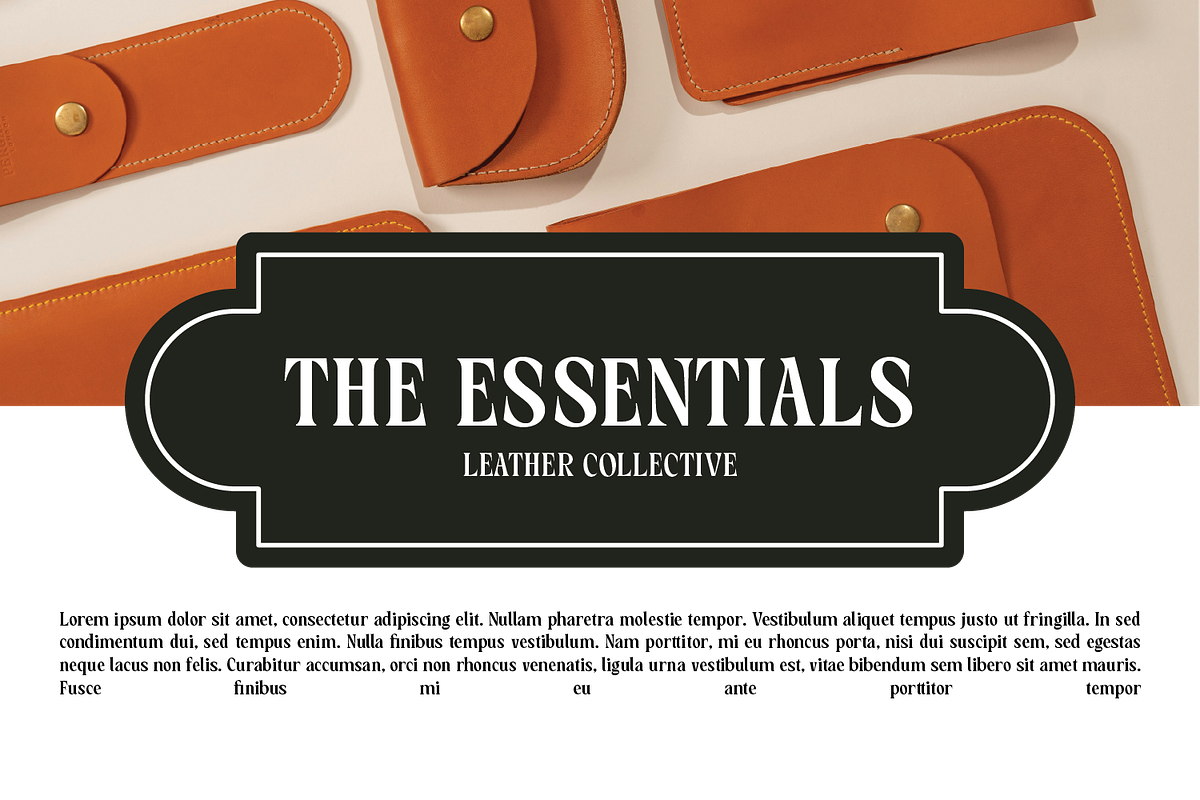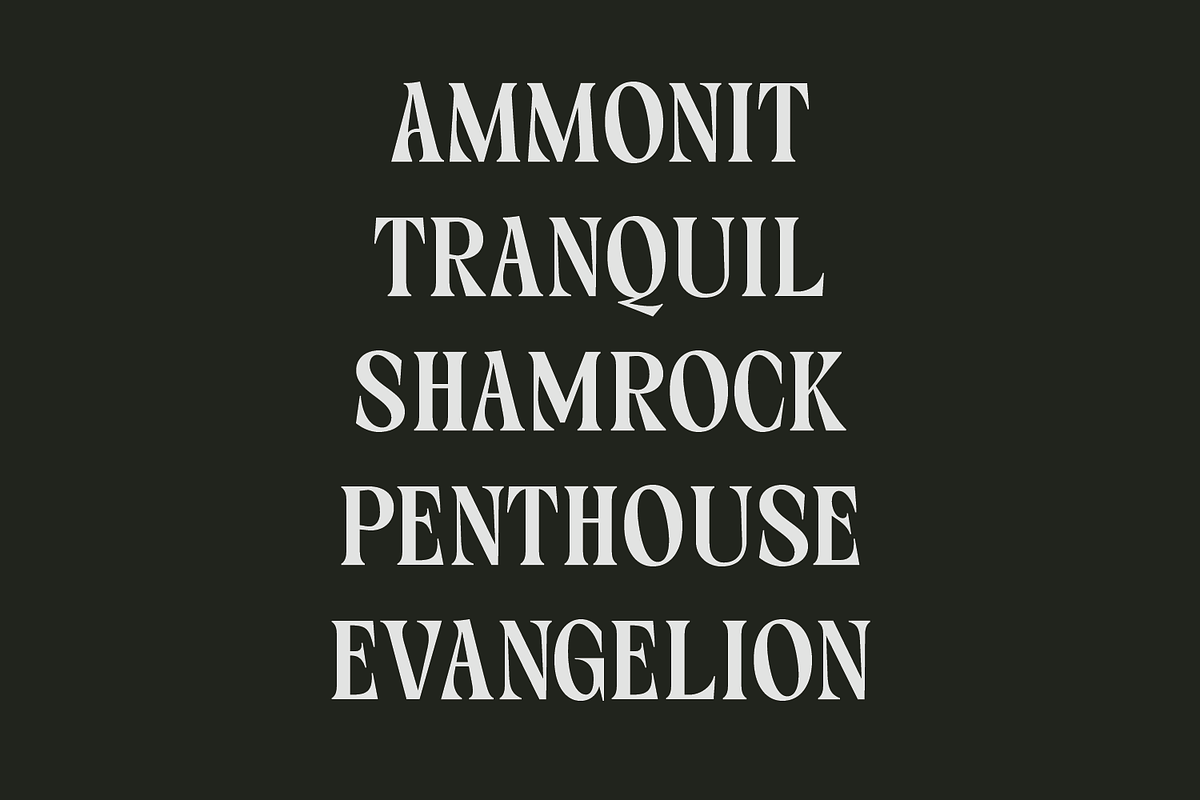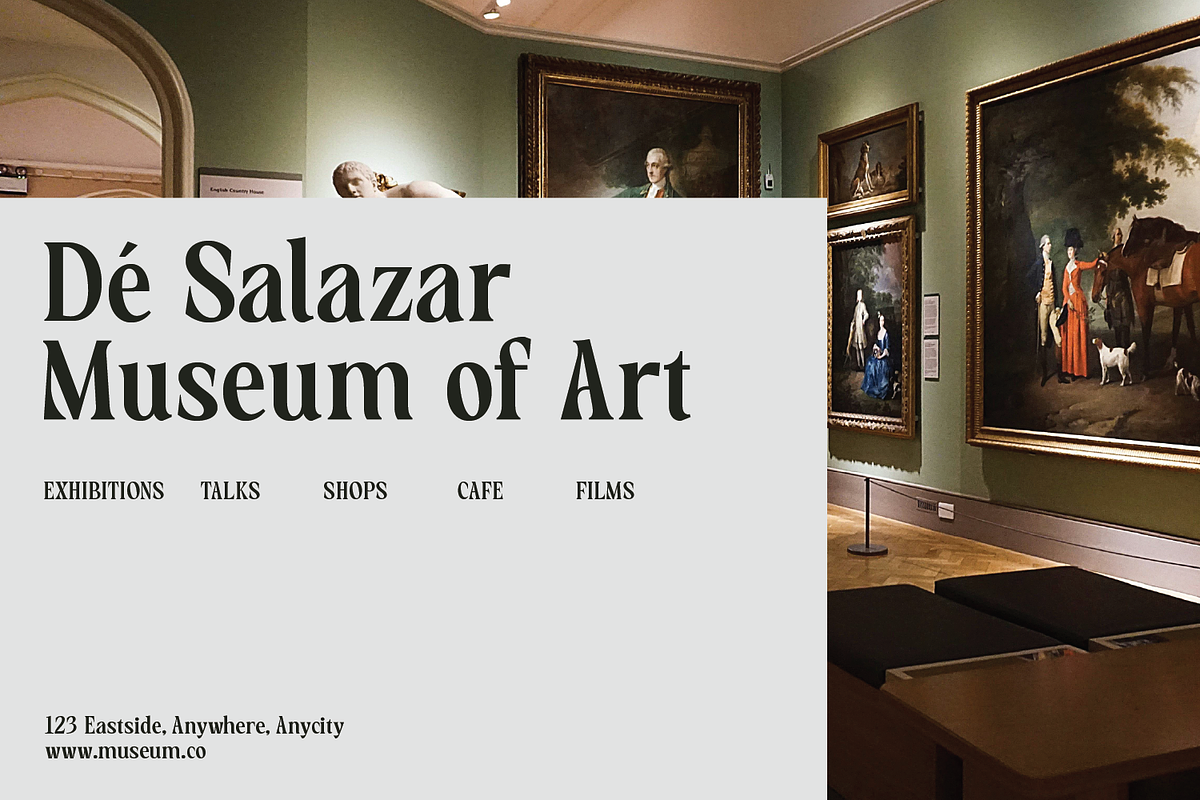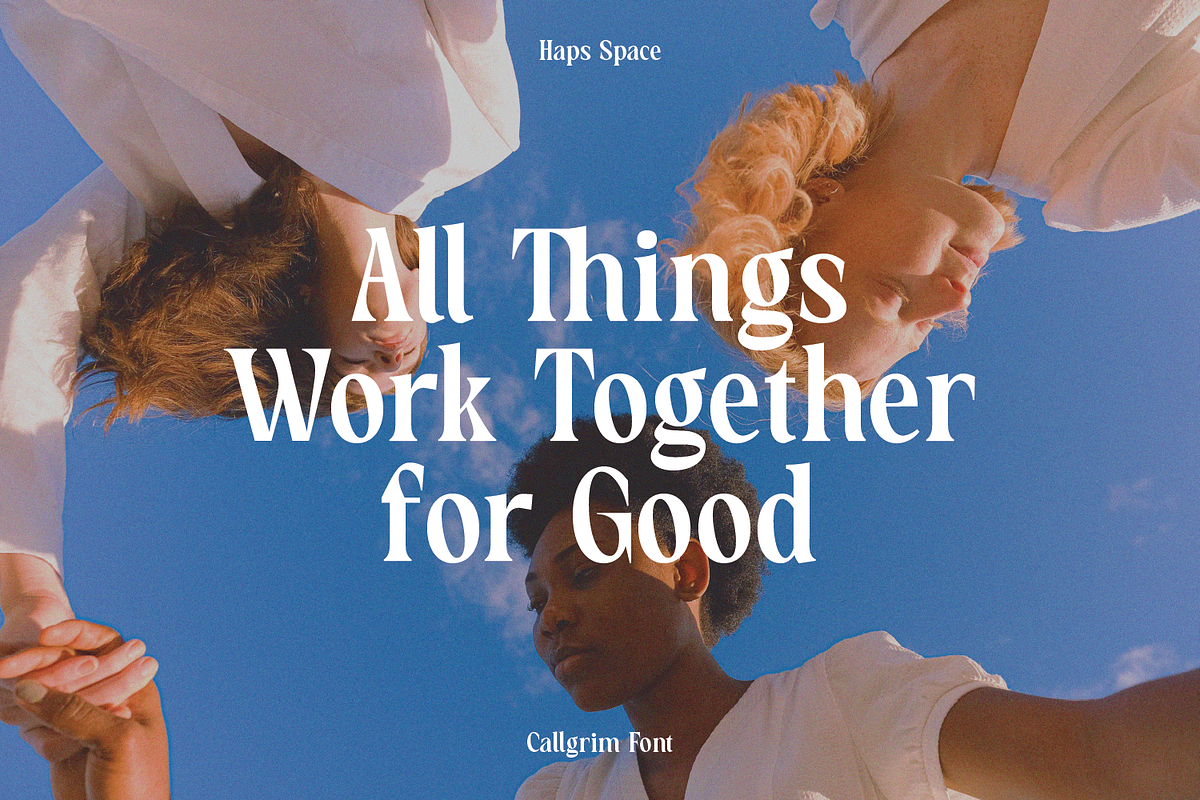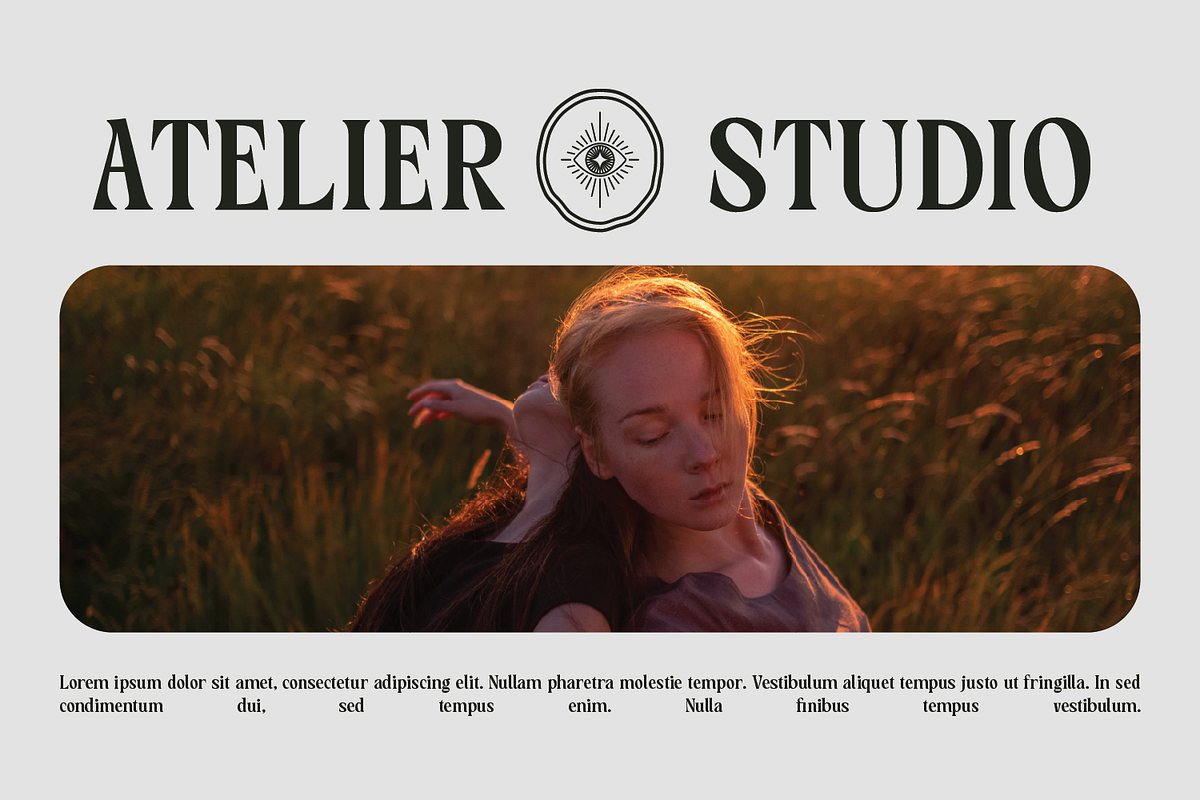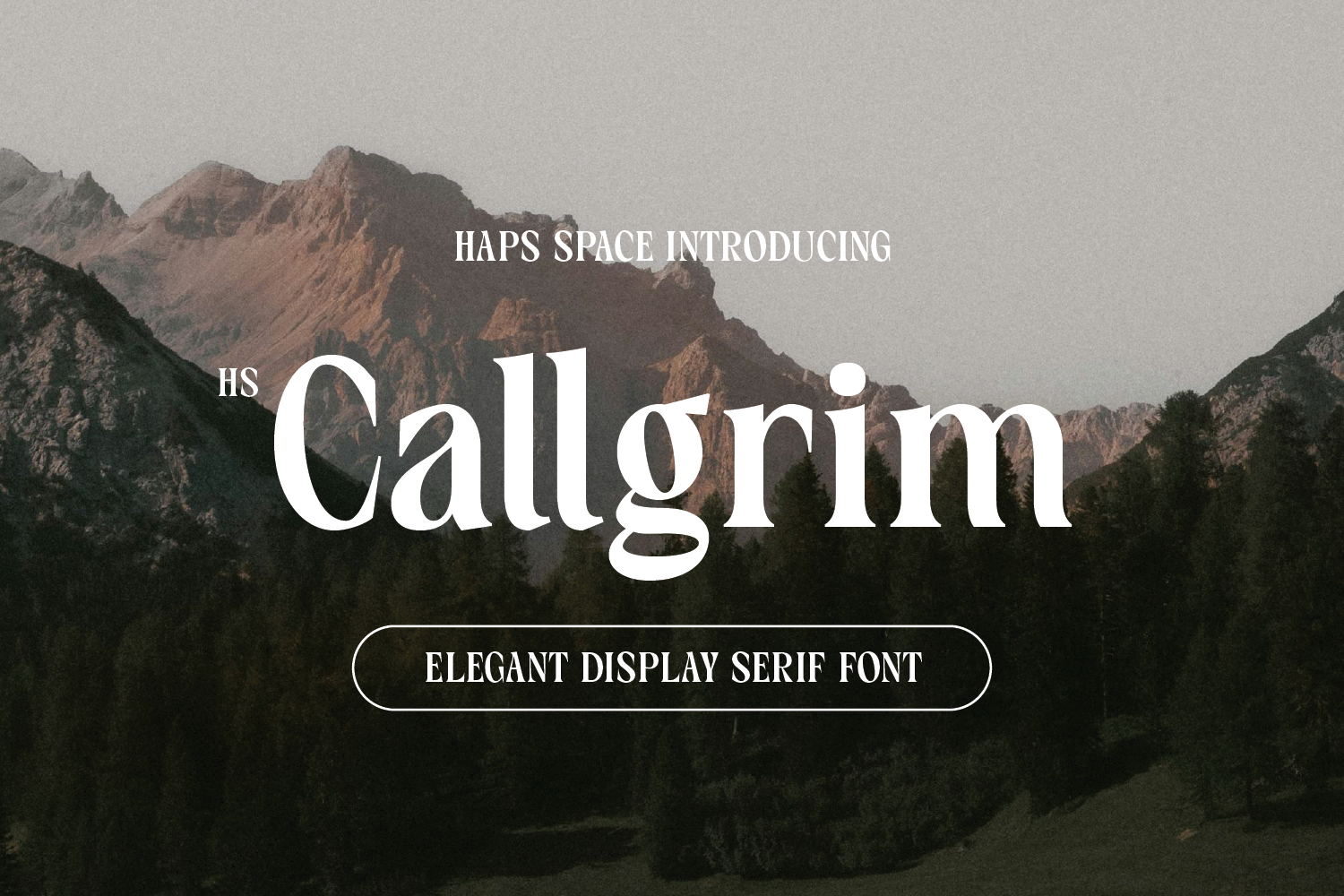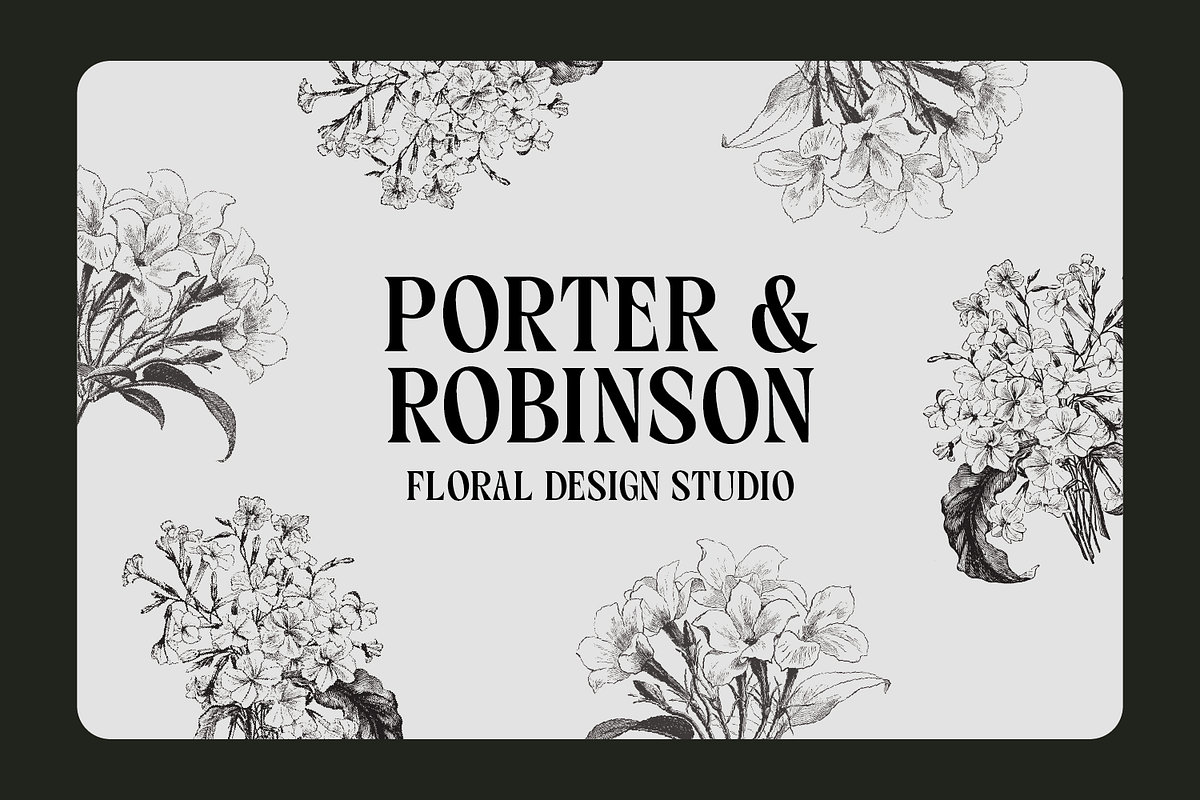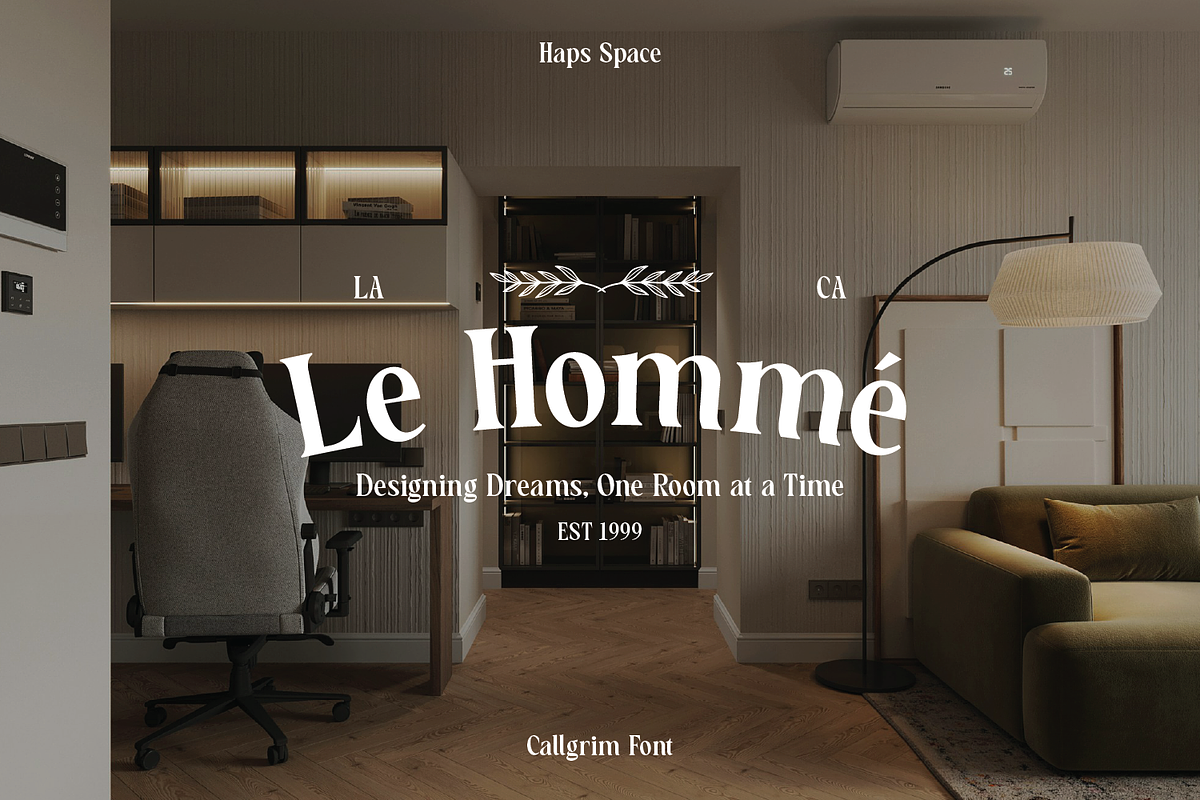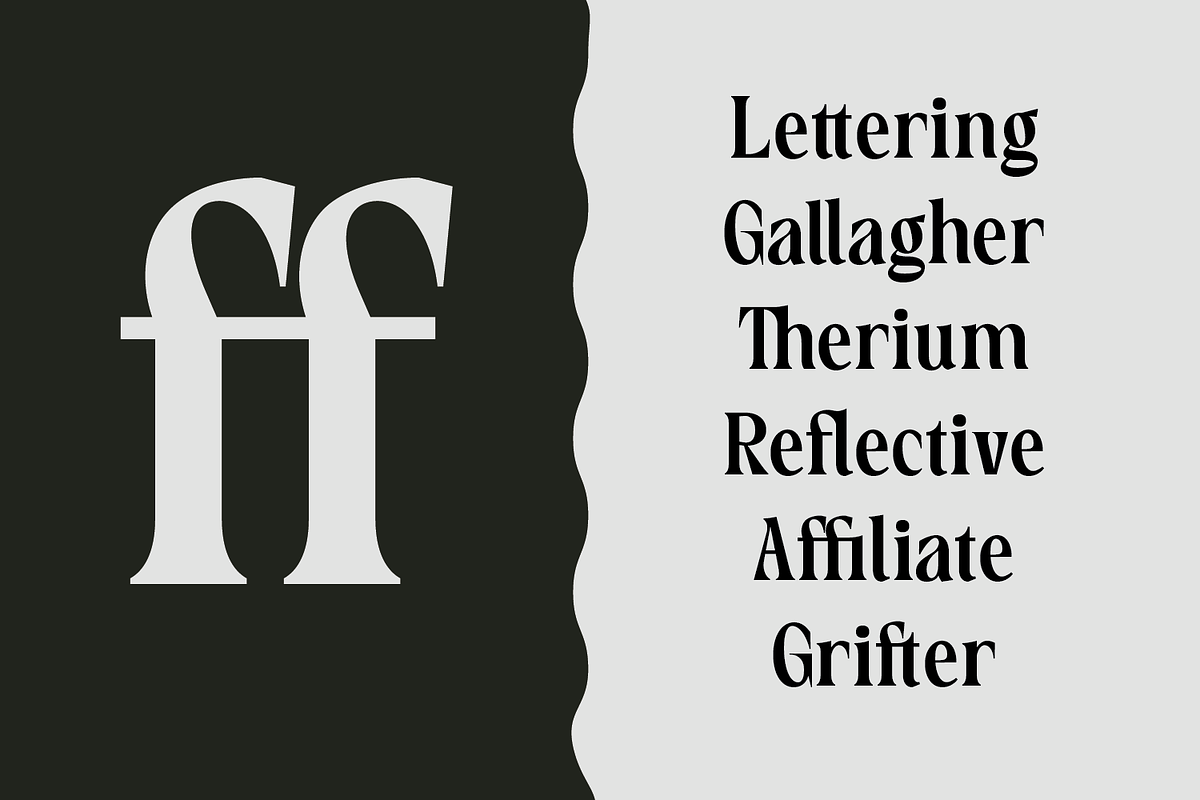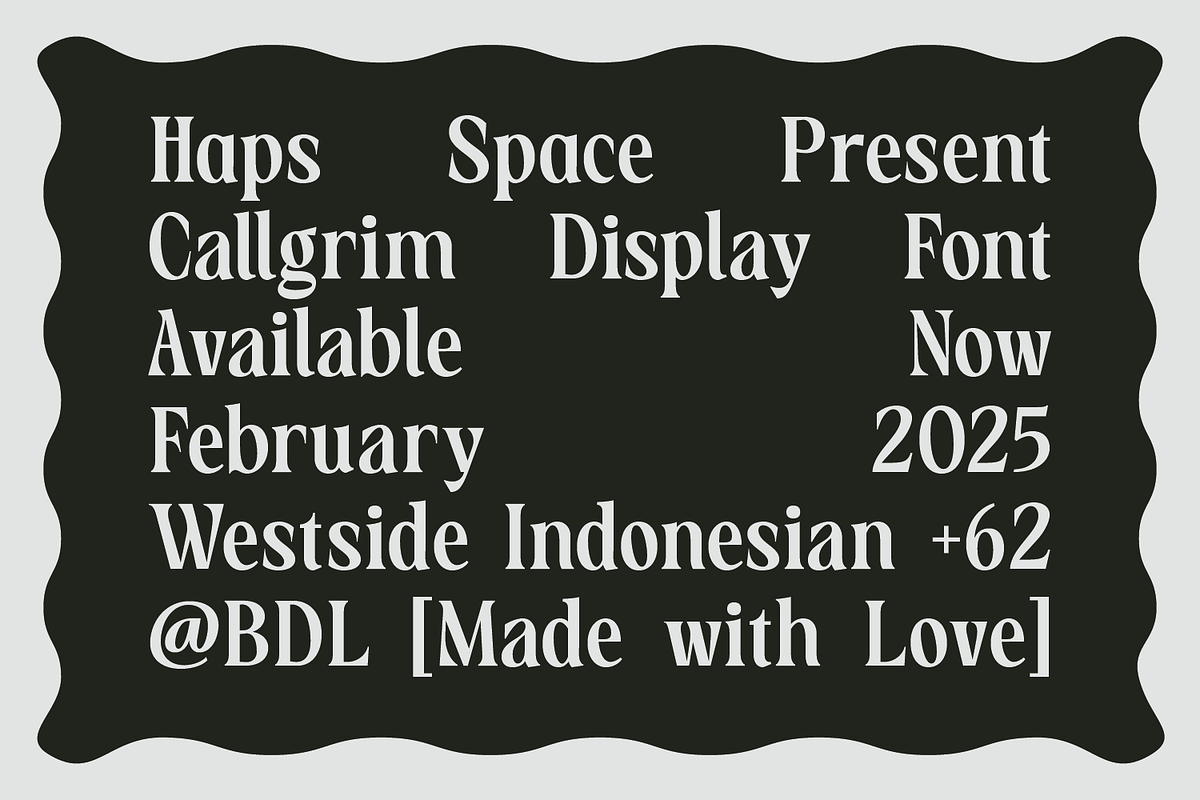
Callgrim - Serif Display Font
Callgrim - Serif Display Font is Serif Display Font comes with alternatives and ligatures, helps to create stunning Posters, Branding, Tshirt, Social Media Graphics and much more.